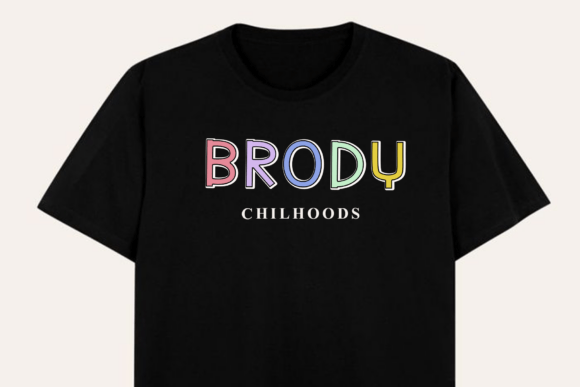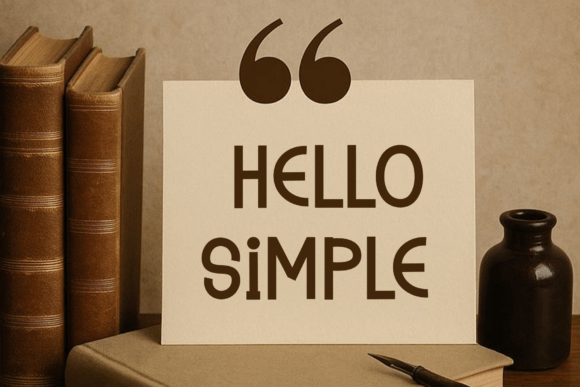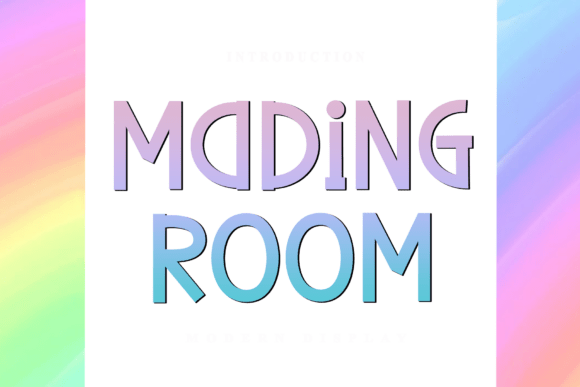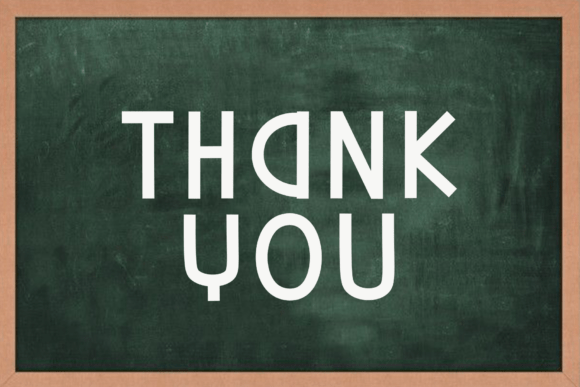
Cinematic Font: Elevate Your Designs with a Touch of Silver Screen Glamour
In the world of design, fonts play a crucial role in conveying the tone and aesthetic of a project. For those seeking to evoke the classic, sophisticated look of old Hollywood, the Cinematic Font is an exceptional choice. This striking, bold modern display font boasts a strong retro-deco influence, making it perfect for creating eye-catching movie posters, film titles, nostalgic branding, music videos, and more.
The Unique Character of Cinematic Font
What sets Cinematic Font apart is its distinctive character set, which combines rounded and angular geometric forms. This blend of shapes gives the font a memorable, stylized, and slightly quirky persona that is sure to capture attention. The unique design ensures that your text stands out, whether you’re working on a movie poster, a film title sequence, or a branding project.
Key Features of Cinematic Font
- Retro-Deco Influence: The font’s design is heavily influenced by the retro-deco style, reminiscent of the opulent and glamorous era of old Hollywood.
- Modern Display Font: Despite its vintage inspiration, Cinematic Font is a modern display font that works exceptionally well in contemporary designs.
- Geometric Forms: The combination of rounded and angular geometric forms gives the font its unique and stylized appearance.
- High-Impact Visual Style: The font is designed to make a statement, making it perfect for projects that require a clear, modern, and high-impact visual style.
Cinematic Font is incredibly versatile and can be used for a wide range of projects, including:
- Movie Posters: Create eye-catching movie posters that evoke the classic look of old Hollywood.
- Film Titles: Use Cinematic Font to create memorable and stylish film title sequences.
- Nostalgic Branding: Add a touch of vintage glamour to your branding projects with this unique font.
- Music Videos: Elevate your music videos with a font that exudes style and sophistication.
Why Choose Cinematic Font?
With so many fonts available, why choose Cinematic Font for your next project? Here are a few compelling reasons:
- Unique Design: The font’s distinctive design ensures that your project stands out from the crowd.
- High Versatility: Cinematic Font can be used for a wide range of projects, from movie posters to branding and music videos.
- Easy to Read: Despite its bold and stylized design, the font remains easy to read, making it perfect for titles, headings, and short text.
Tips for Using Cinematic Font
To get the most out of Cinematic Font, consider the following tips:
- Use for Headings and Titles: The font is perfect for headings and titles, where you want to make a bold statement.
- Pair with Simple Fonts: For body text, pair Cinematic Font with a simple, easy-to-read font to create visual contrast.
- Experiment with Colors: Don’t be afraid to experiment with different colors to find the perfect match for your project.
Cinematic Font is a powerful tool for designers and crafters looking to add a touch of silver screen glamour to their projects. With its unique blend of rounded and angular geometric forms, this striking font is sure to capture attention and leave a lasting impression. Whether you’re working on a movie poster, film title sequence, or branding project, Cinematic Font is an excellent choice.